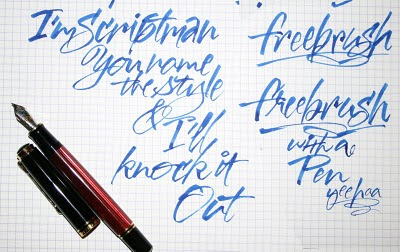
This is another example of the brush quality I can get with the Condor nib. This pen is wonderful lettering instrument. The line thickness changes depending on the angle the nib touches the paper surface. Rather amazing that a fountain pen can produce wet brush strokes.